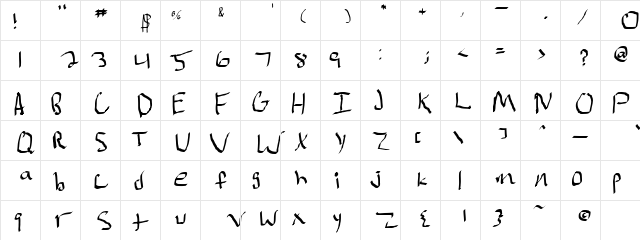
Complete mr. doodely doo Normal glyph index. Displaying only characters natively supported by mr. doodely doo Normal font.
mr. doodely doo is a composed and adaptable typeface that performs quietly and consistently across a wide range of design contexts.